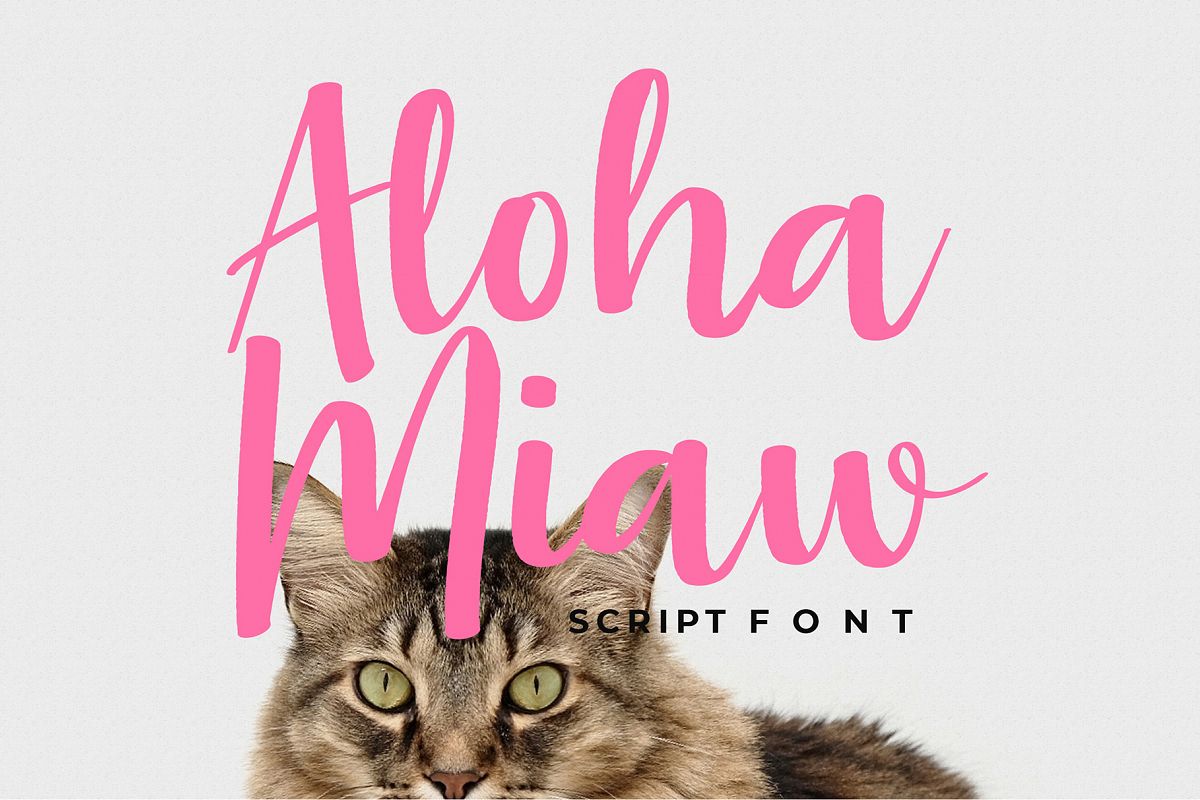
Aloha Miaw Script Font
Aloha Miaw Script Font can be used for various purposes such as logos, wedding invitations, t-shirts, letterheads, signage’s, labels, and much more!
• Tons of glyphs